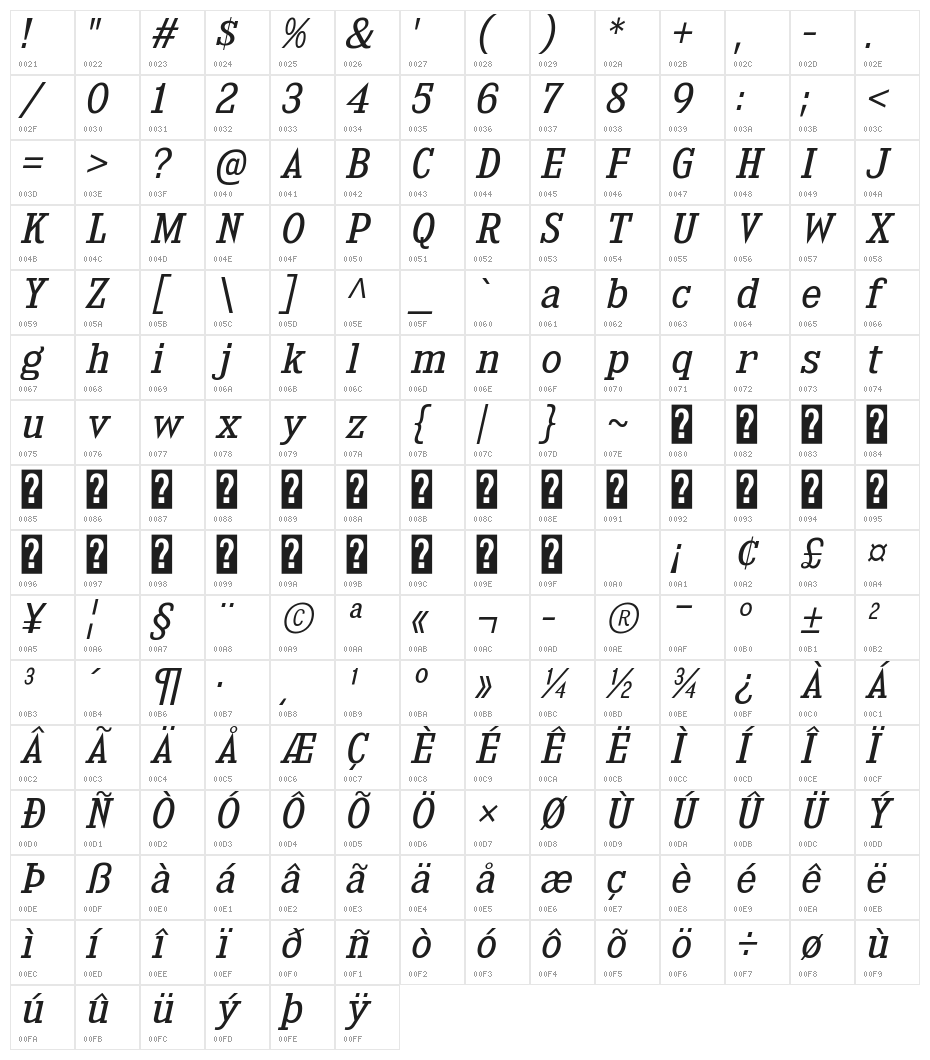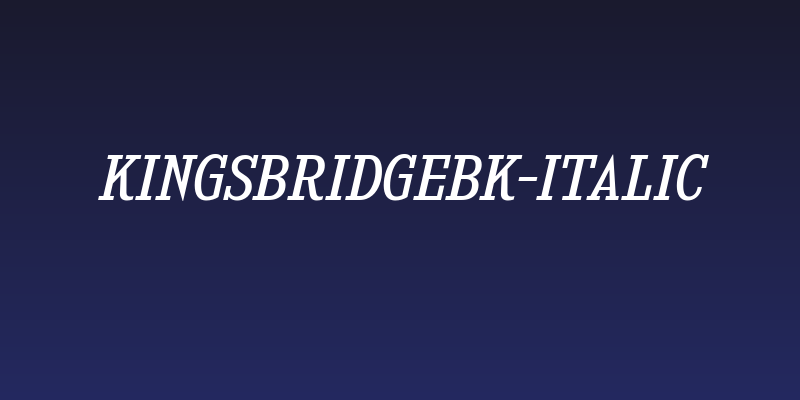
KingsbridgeBk-Italic Font
KingsbridgeBk-Italic Description
This font features a classic serif style with a distinct italic slant, giving it an elegant and sophisticated appearance. The characters are well-defined with moderate stroke contrast, making it suitable for both formal and creative applications. The uppercase letters are bold and commanding, while the lowercase letters maintain a graceful flow. The numerals are clear and balanced, ensuring readability. Special characters are designed with the same attention to detail, providing a cohesive look across all glyphs. This font is versatile, suitable for a variety of design projects that require a touch of elegance and tradition.